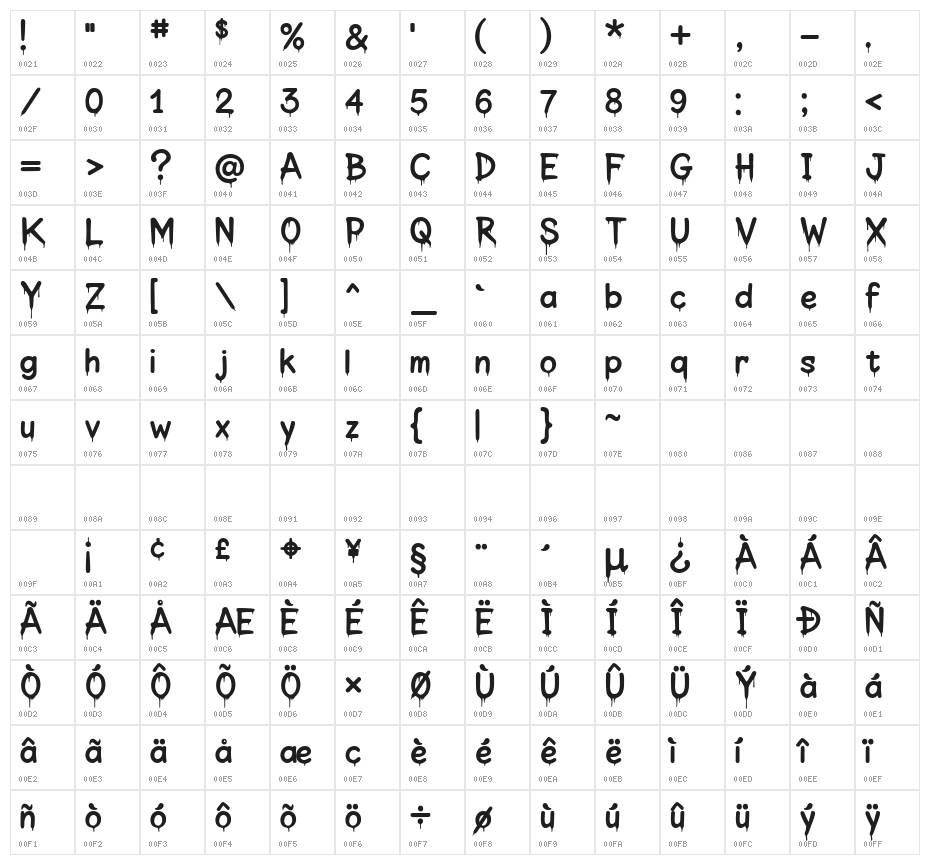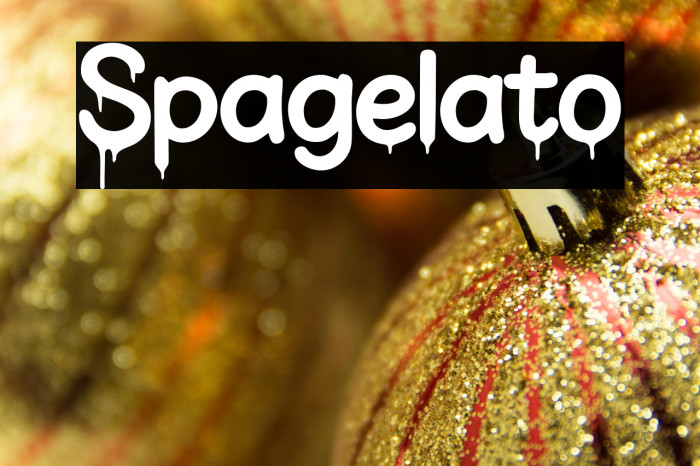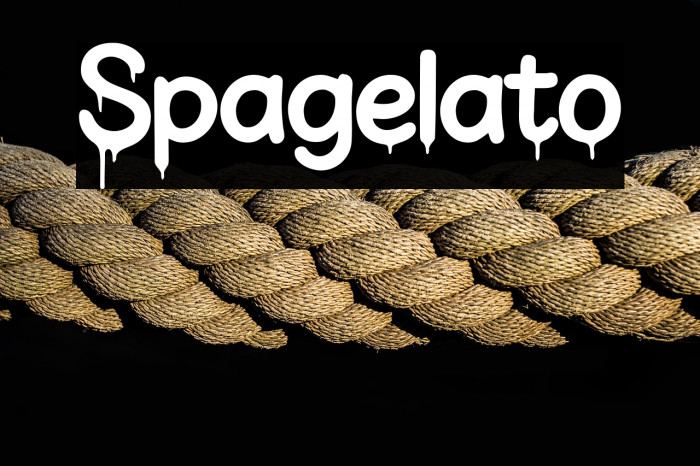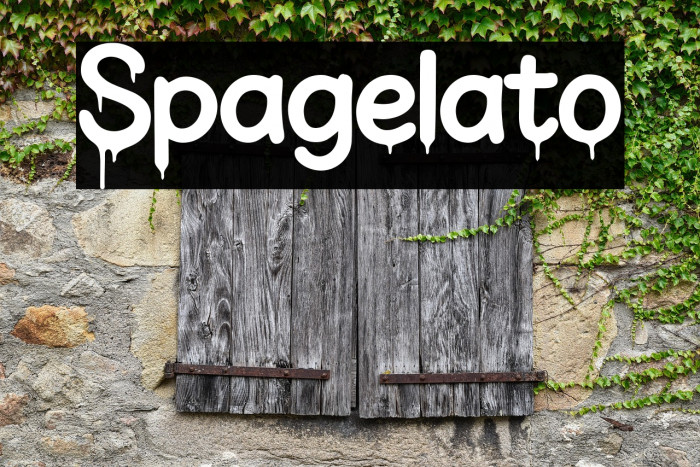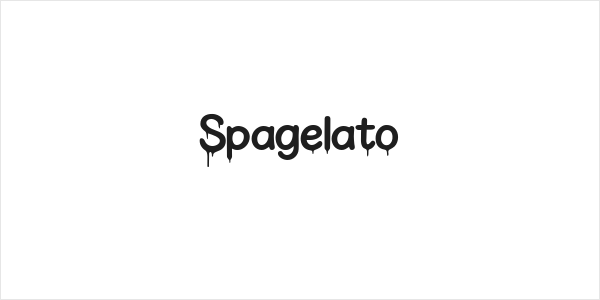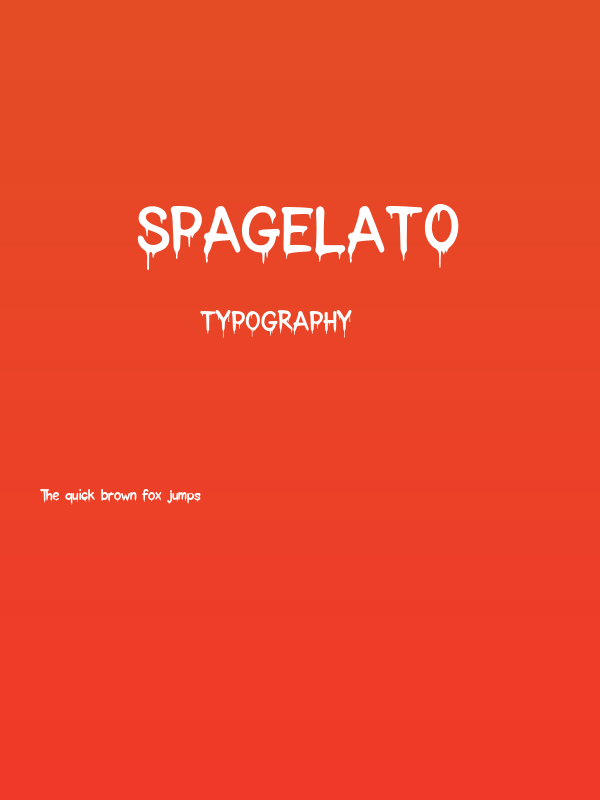
Spagelato Font
| Vorgeschlagene Projekte | Ideal for Halloween-themed designs, horror movie posters, spooky invitations, and creative branding projects. |